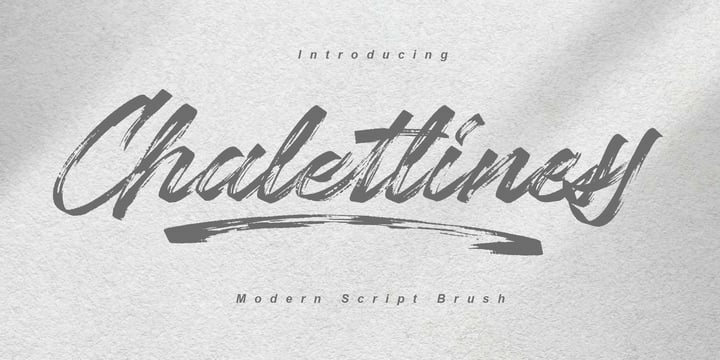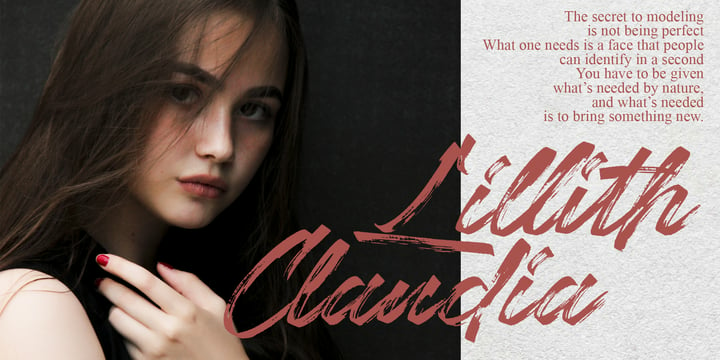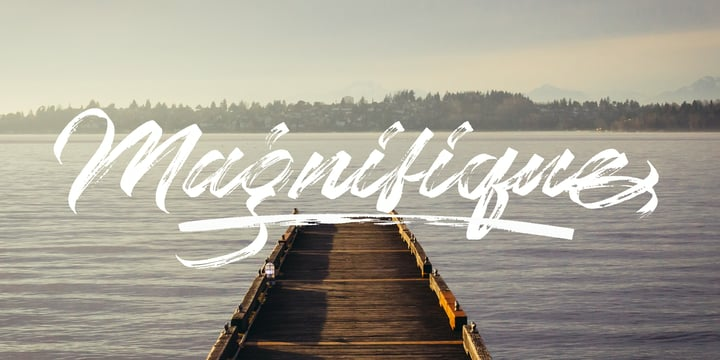
Chaletliness Font Family
Chaletliness Font FamilyChaletliness is a script brush font that has its own uniqueness and characteristics from brush fonts, because it is handwritten manually. This font is carefully crafted with a modern touch. This font looks elegant, luxurious, natural and rustic. Chaletliness would perfect for photography, watermark, social media posts, advertisements, logos & branding, invitation, product designs, label, stationery, wedding designs, product packaging, special events or anything that need handwriting taste.